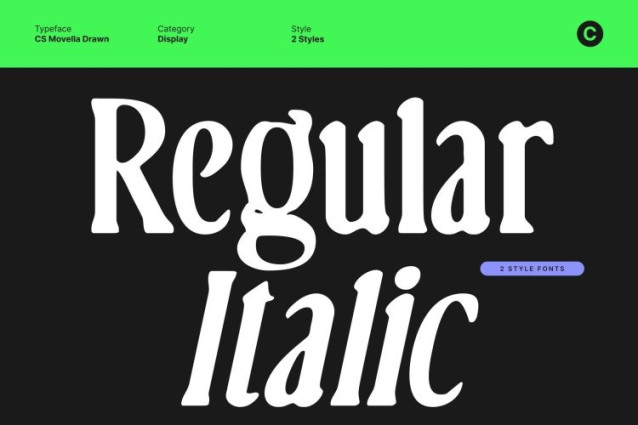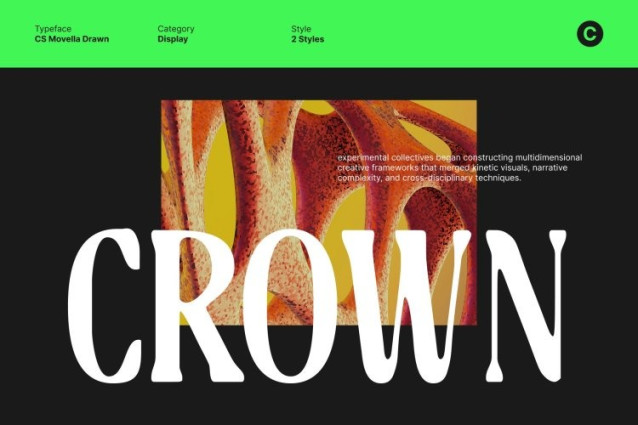
CS Movella Drawn Font
CS Movella Drawn Font This is a sophisticated serif font defined by refined curves and elegant elongated details. Its graceful proportions create a high-end visual character that feels luxurious, poised, and timeless. Each letterform is carefully shaped to convey elegance and confidence, making the font ideal for designs that demand visual prestige and refined aesthetics.
Classic Structure with Contemporary Sensibility
Rooted in classic serif traditions, this font balances timeless typography with a contemporary edge. The elongated details enhance vertical rhythm and elegance, while the overall structure remains clean and readable. This harmony allows the font to feel both traditional and modern, perfectly suited for upscale editorial layouts and premium branding systems.
Drawn Texture for Unique Personality
The subtle drawn texture adds a handcrafted quality that sets apart from conventional serif fonts. This organic detail introduces warmth, individuality, and artistic depth, preventing the font from feeling rigid or overly formal. The drawn effect enhances its exclusivity, making each composition feel personal and thoughtfully crafted.
Perfect for Luxury, Editorial, and Branding Projects
This font excels in luxury branding, fashion editorials, high-end packaging, magazines, book covers, and elegant promotional materials. It communicates sophistication, artistry, and refinement while remaining expressive and distinctive. With its combination of elongated elegance and handcrafted texture, delivers a premium typographic voice that feels timeless, artistic, and confidently luxurious.